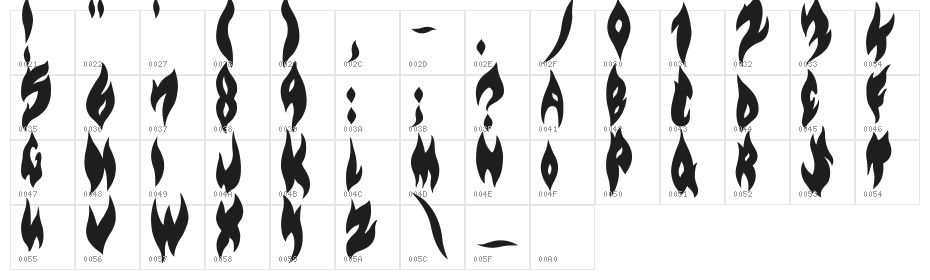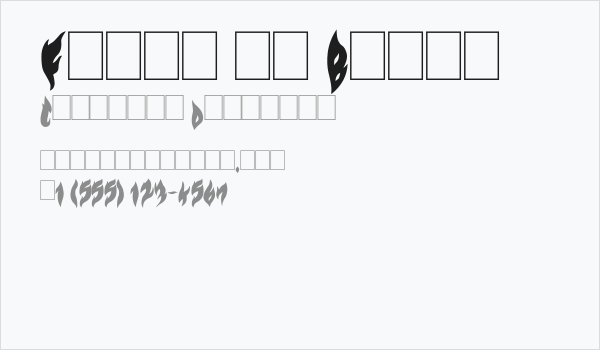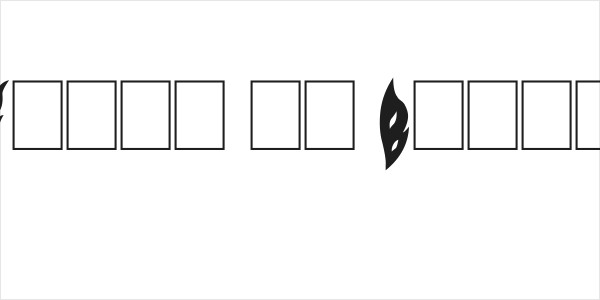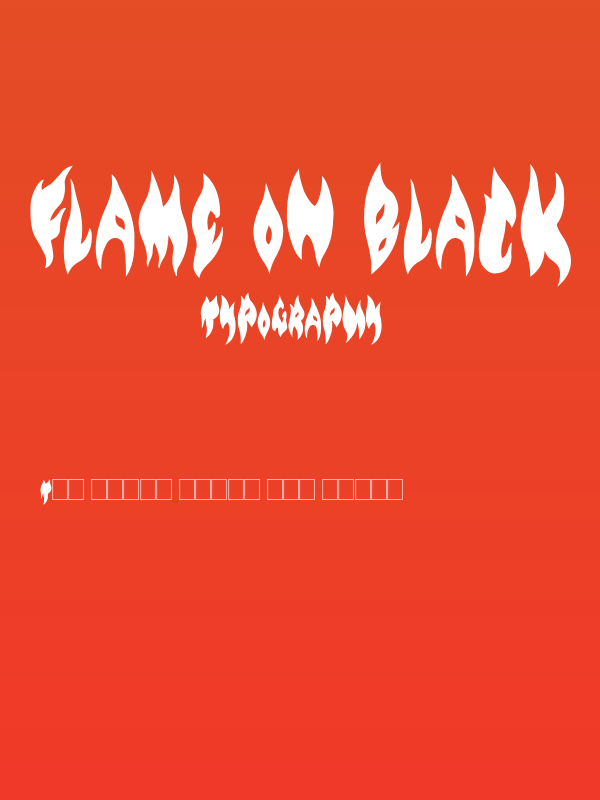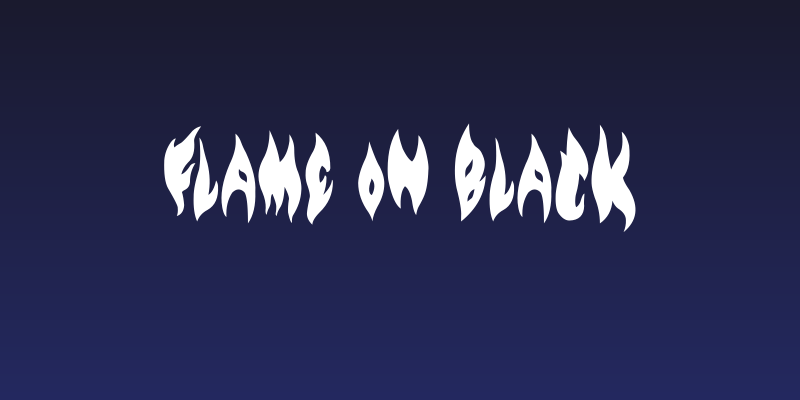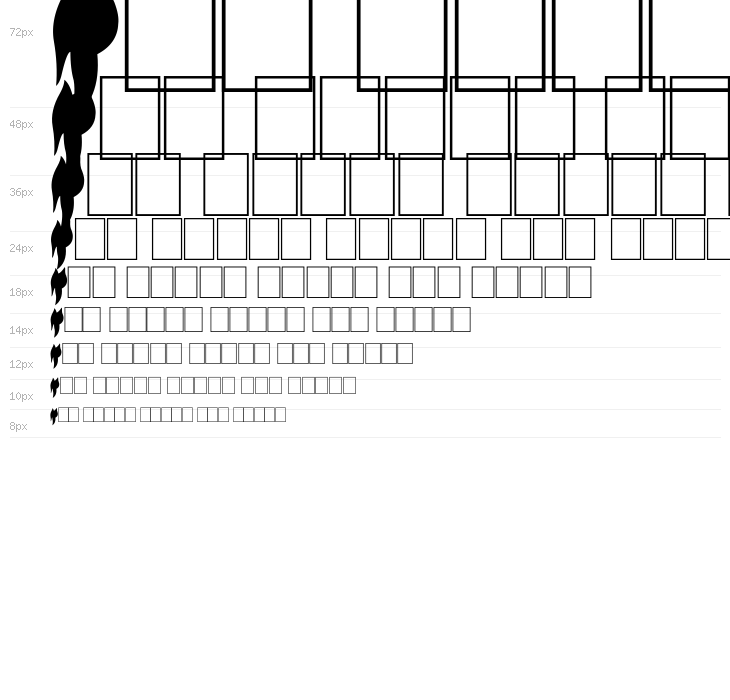
Flame on Black Font
Flame on Black Description
This font features a dynamic and fiery design, with each character resembling a flame. The letters have a bold, flowing appearance, with sharp edges and curves that mimic the movement of fire. The uppercase and lowercase letters maintain a consistent style, emphasizing the flame motif. Numbers and special characters are also designed with the same fiery aesthetic, making the entire set cohesive and visually striking. The font's unique style makes it ideal for projects that require a bold and attention-grabbing look.
| Proposed Projects | Ideal for use in branding, posters, album covers, and any design project that requires a bold, fiery aesthetic. |